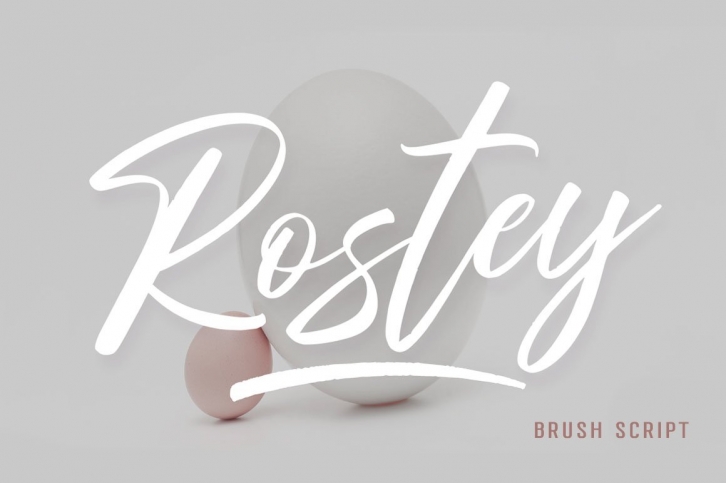
Rostey is a trendy and unique font with an authentic style. It was designed by Dhan Studio and it's a great choice for creative people who need such a font. It was released on April 12, 2020 and the file size is 4.5 MB. Rostey will add an organic vibe to any design idea!